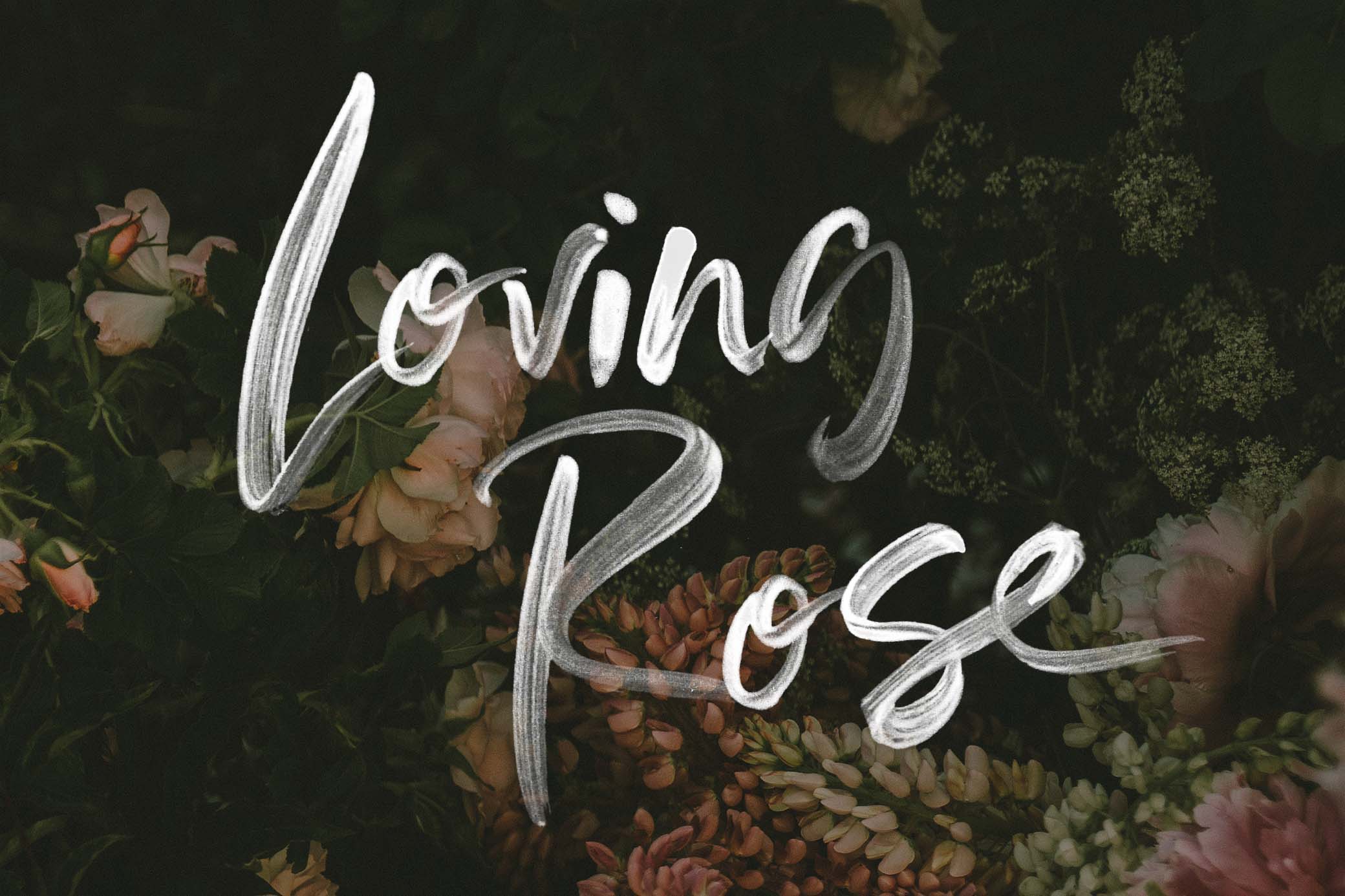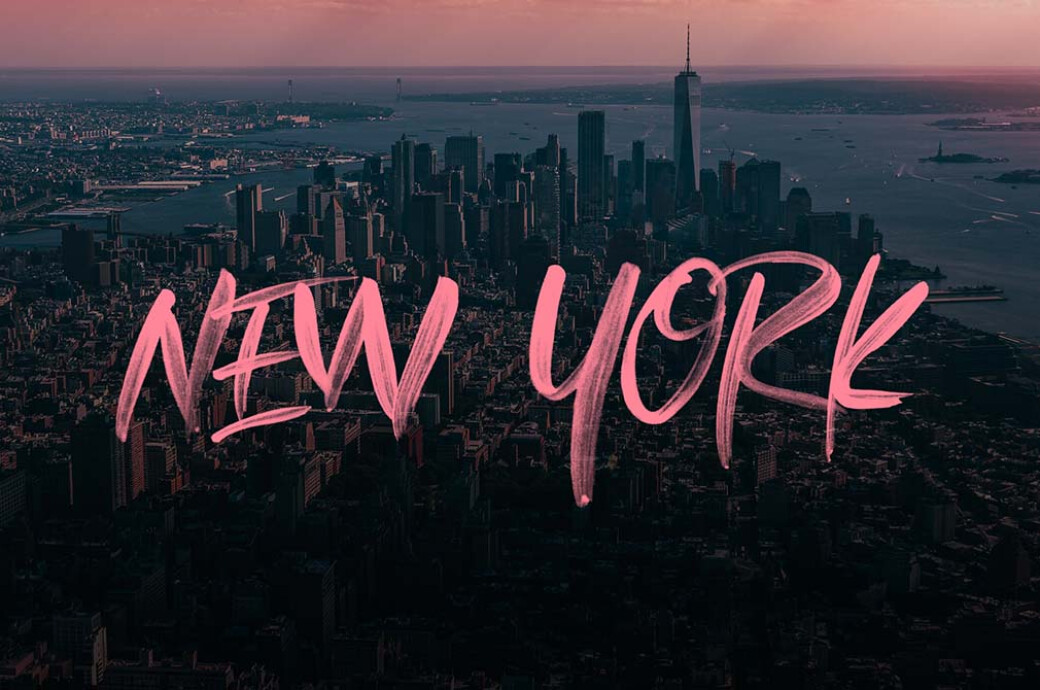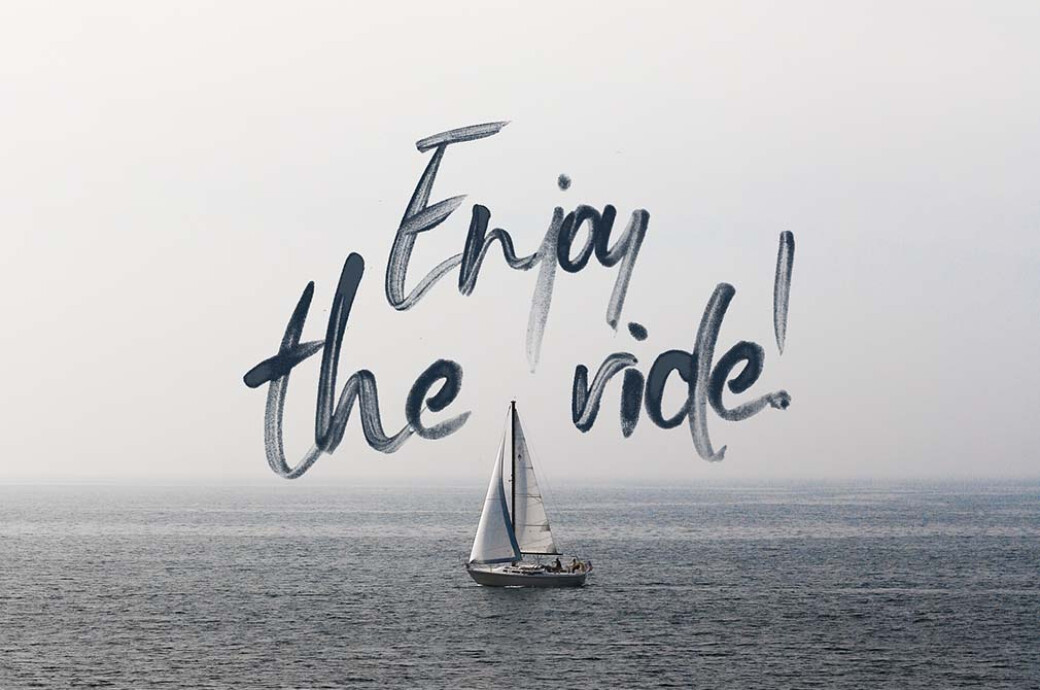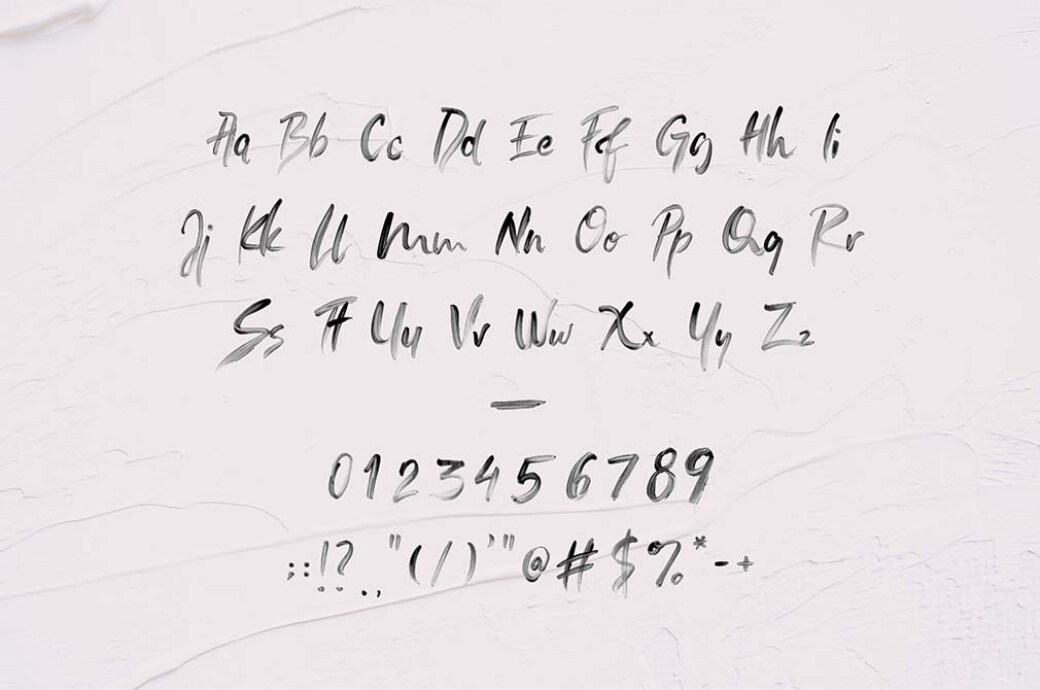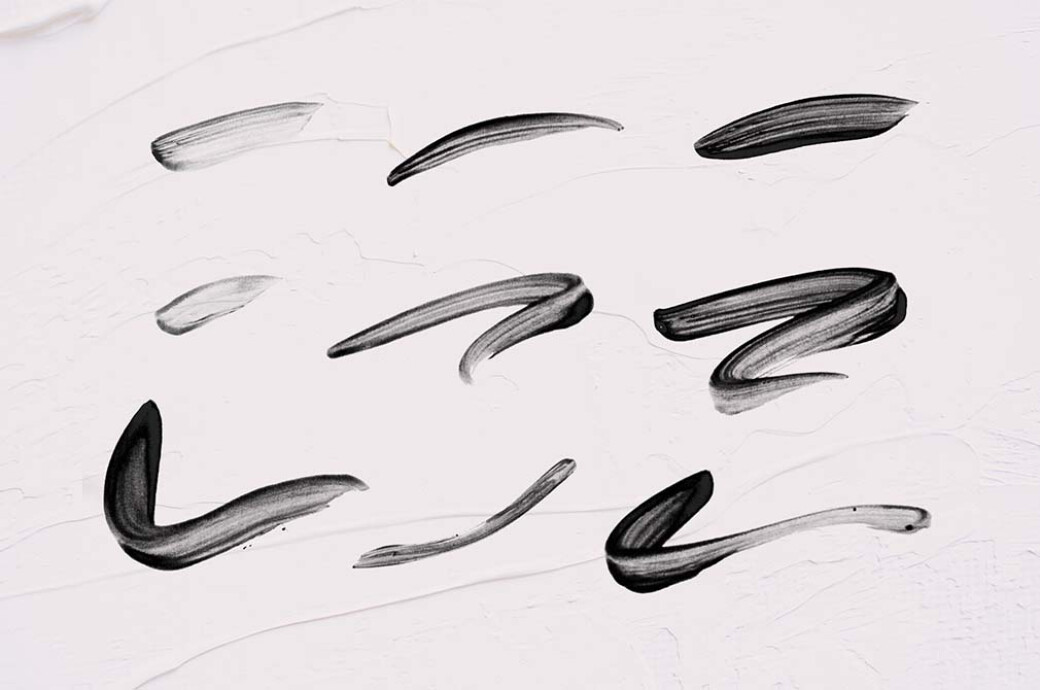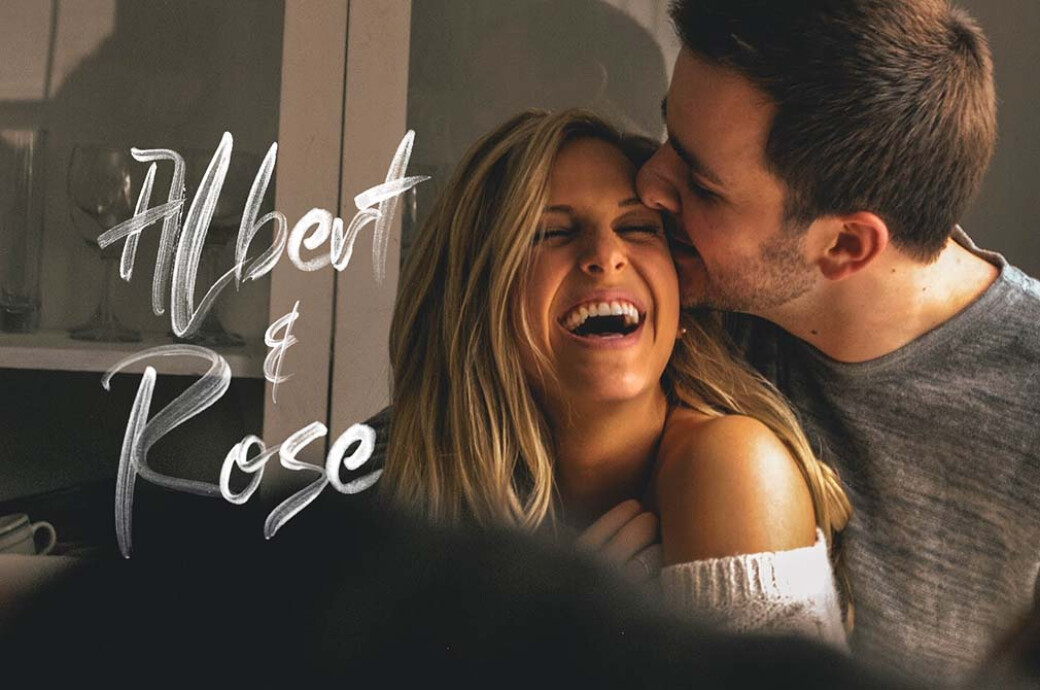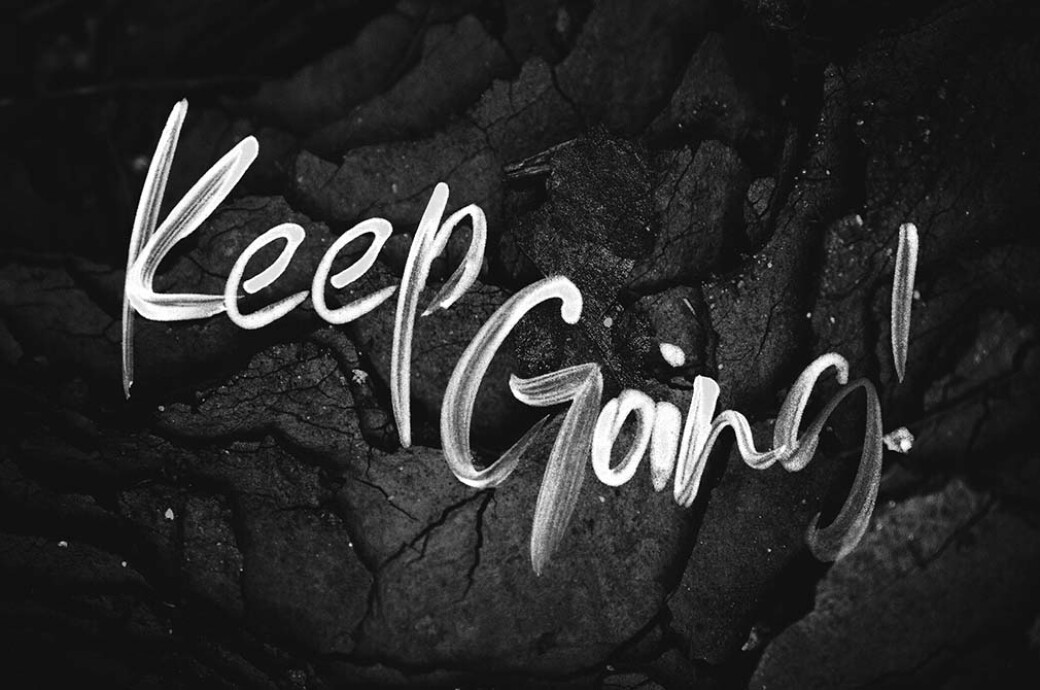
Loving Rose Watercolor Font
The subtle, misty watercolor strokes of this font are the embodiment of elegance. Based on real handwriting, the typeface is a pure inspiration for sophisticated design lovers.It’s hard to resist a tender, soft font when you see one. And Love Rose won’t let you pass by, be sure! As it perfectly suits postcards, ads, posters and any other works you’d like to see elegant and exquisite, don’t be surprised when you find yourself resorting to work with it over and over again. The font comes in 3 styles and includes splashes, ligatures and multilanguage support.This resource is created, and fully compatible with Adobe Photoshop. For the best experience, we recommend to use the latest Creative Cloud version of the app.